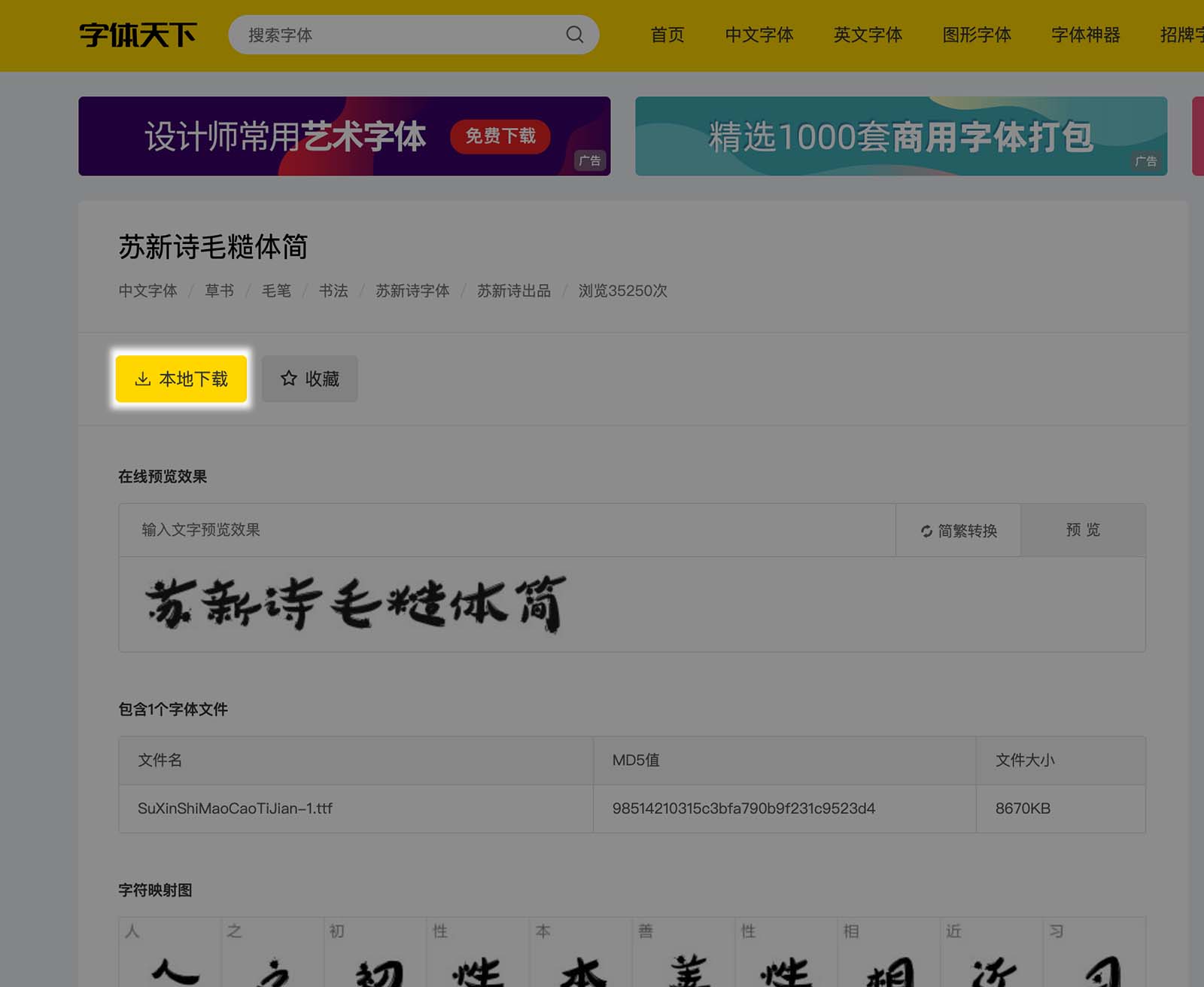
(simplified) Su Xin Shi Mao Cao
Su Xin Shi Mao Cao (苏新诗毛糙) is a cool calligraphy font that you can download for free. The strokes are thick and expressive, which is great for big text displays. This font is created and owned by Su Xin Shi, and you can only use this font for personal, trial use only.